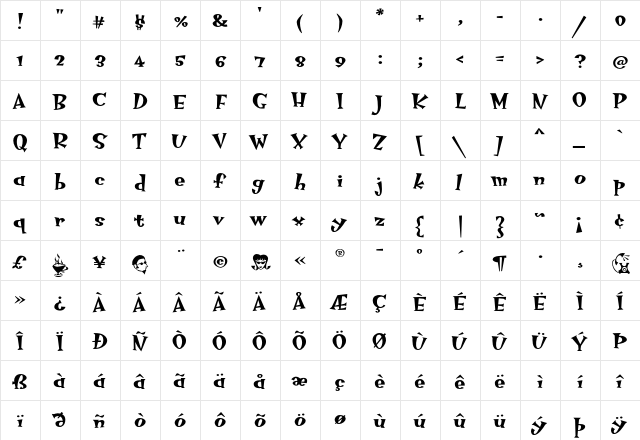
HotsyTotsy Semibold-MvB
Design Context for HotsyTotsy Typeface
HotsyTotsy is a composed and adaptable typeface that performs quietly and consistently across a wide range of design contexts. The heavy weight commands attention and anchors typographic hierarchies.